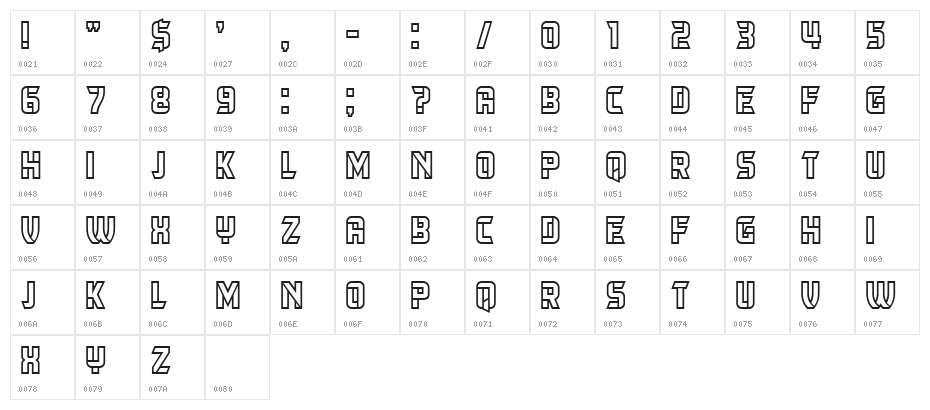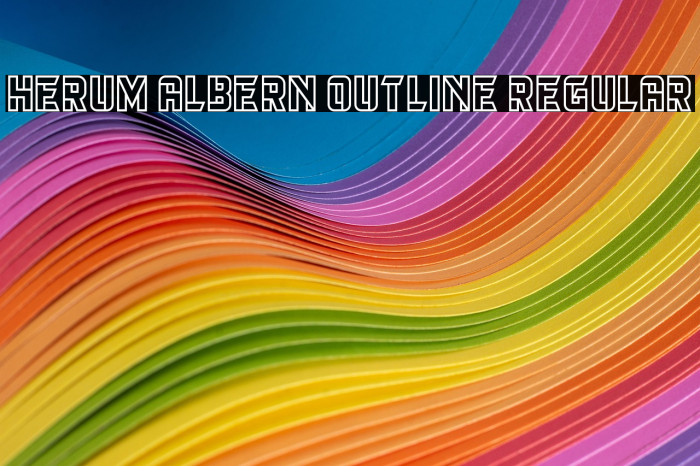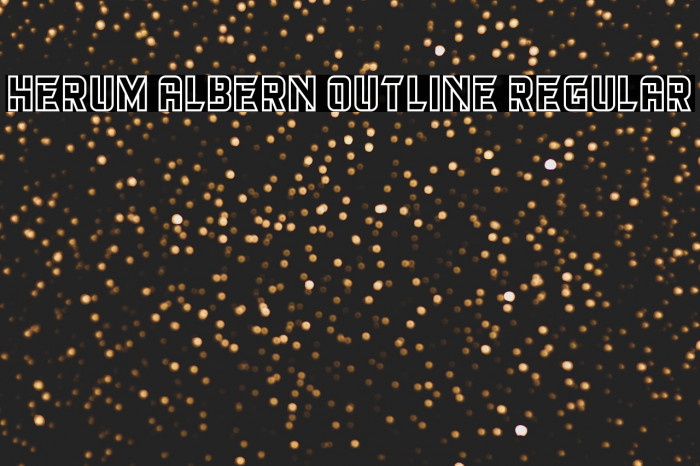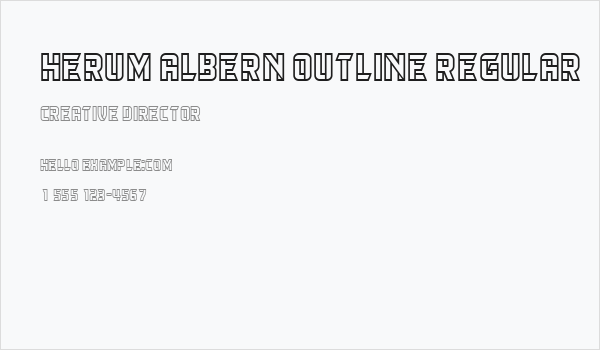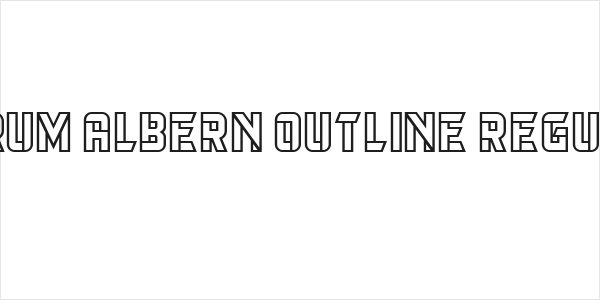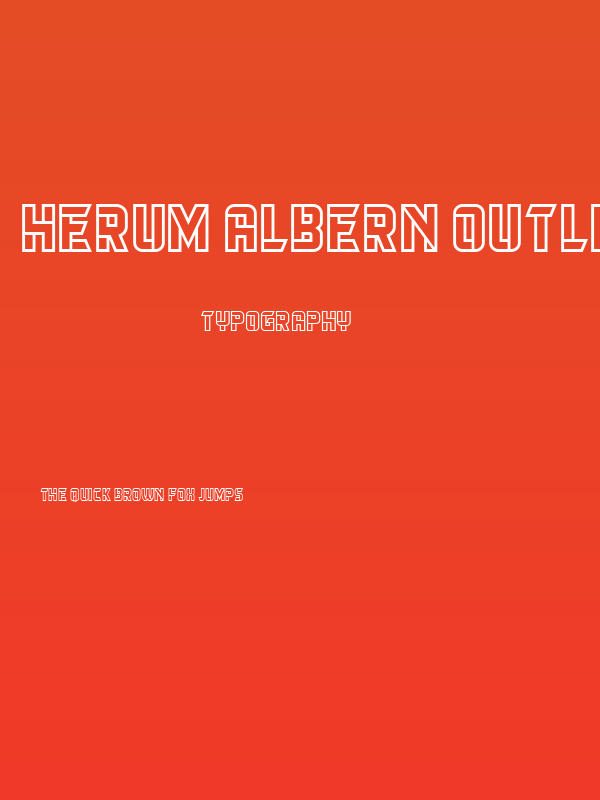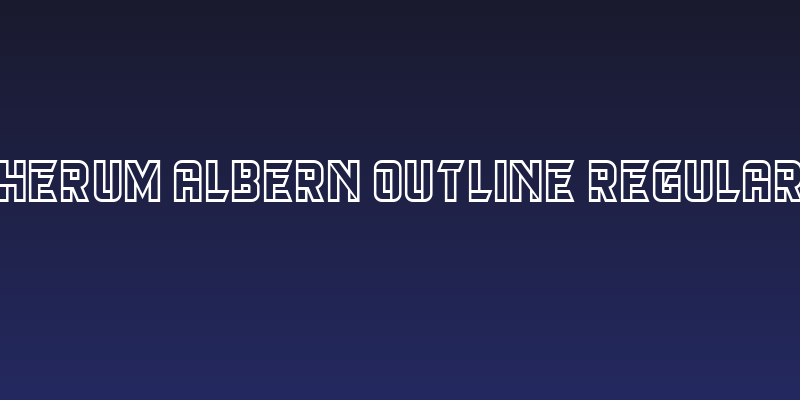
Herum Albern Outline Regular Font
Herum Albern Outline Regular Description
This font features a bold, geometric outline style that creates a striking visual impact. Each character is crafted with precision, showcasing a modern and edgy aesthetic. The uppercase and lowercase letters maintain a consistent design, emphasizing angular shapes and clean lines. The numbers and special characters are equally bold, ensuring uniformity across all glyphs. This font's outline nature gives it a unique, almost futuristic appearance, making it stand out in any design context.